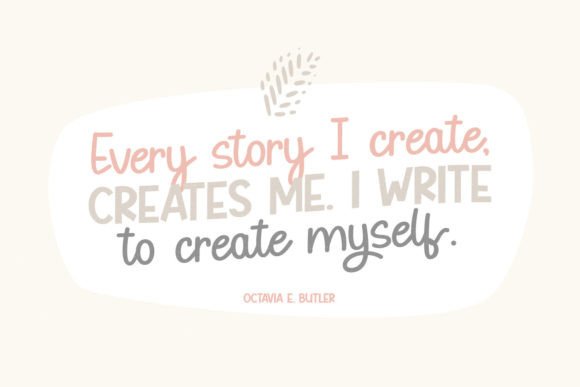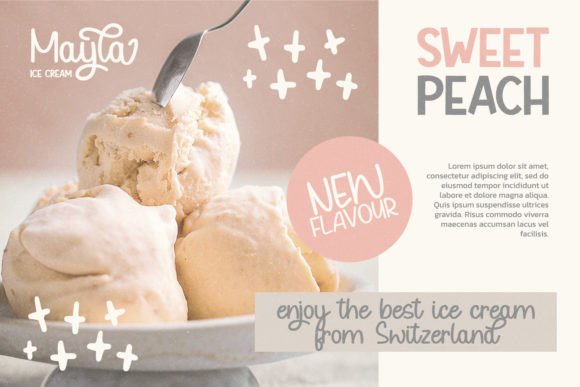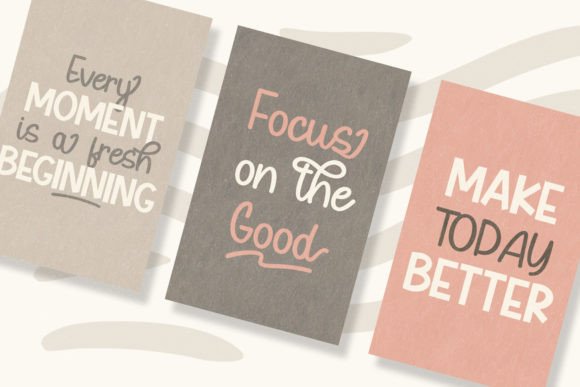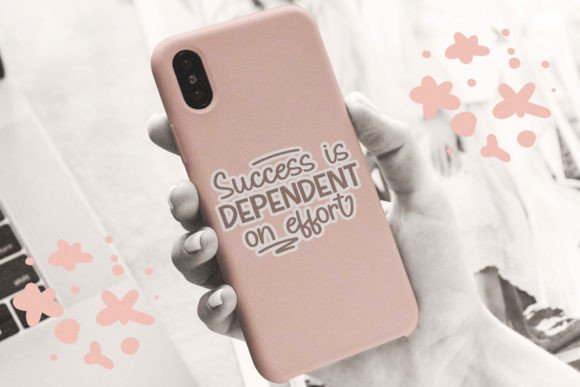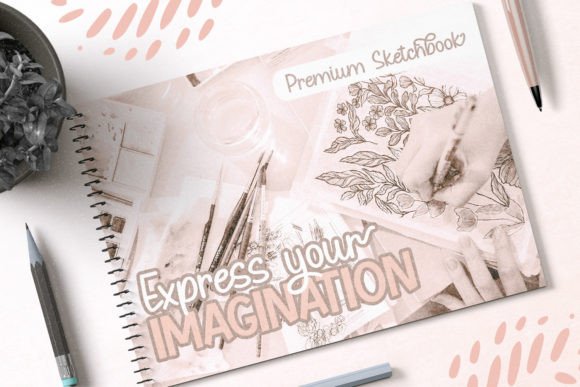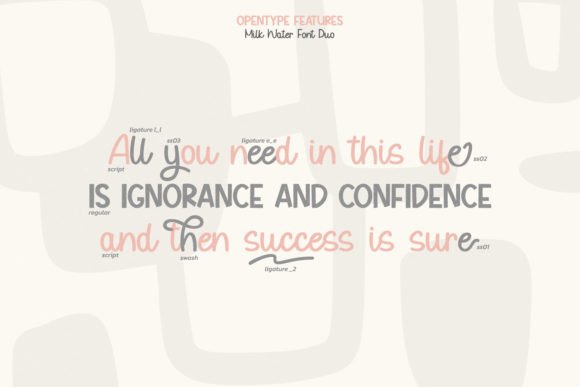
Introduction to Milk Water Duo Font
Milk Water is a beautiful font duo.
Through the display font, Milk Water generates friendly energy as well as a slightly playful aesthetic while the script font style allows us to get modern and elegant looks The result of the combination is warm and cute at the same time.
Key Features of Milk Water Duo Font